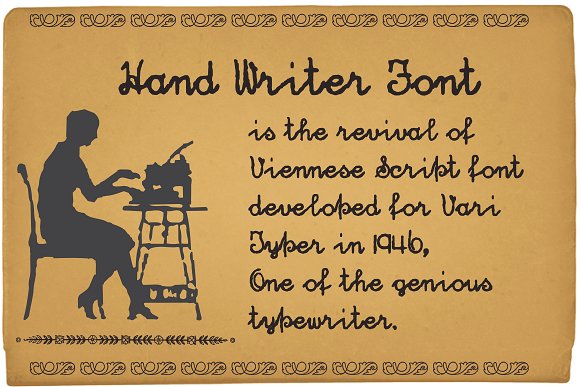
Introducing Hand Writer Font: A Versatile Handwritten Font by Jadugar Design Studio
Are you tired of using the same old fonts in your designs? Look no further! Hand Writer font, created by Jadugar Design Studio, is a handwritten font that adds a personal touch to your projects. With its unique and elegant style, this font is perfect for designers, crafters, and anyone looking to add a bit of personality to their work.
What is Hand Writer Font?
Hand Writer font is a carefully crafted handwritten font designed to mimic the look and feel of handwritten text. It is perfect for a variety of design projects, including invitations, greeting cards, posters, and more. The font is available in 6 variations, each with its own unique character:
- Hand Writer Regular
- Hand Writer Regular Rough
- Hand Writer Thin
- Hand Writer Thin Rough
- Hand Writer Bold
- Hand Writer Bold Rough
Key Features of Hand Writer Font
So, what makes Hand Writer font so special? Here are some of its key features:
- Unique and Elegant Style: Hand Writer font has a distinctive and elegant style that sets it apart from other fonts.
- 6 Variations: With 6 different variations, you can choose the one that best suits your design needs.
- Handwritten Look: The font is designed to mimic the look and feel of handwritten text, adding a personal touch to your designs.
- Easy to Read: Despite its handwritten style, Hand Writer font is easy to read, making it perfect for body text and headings.
Uses of Hand Writer Font
Hand Writer font is versatile and can be used in a variety of design projects, including:
- Invitations and Greeting Cards: Add a personal touch to your invitations and greeting cards with Hand Writer font.
- Posters and Flyers: Use Hand Writer font to create eye-catching posters and flyers that grab attention.
- Branding and Packaging: Add a touch of personality to your brand with Hand Writer font.
- Digital and Print Media: Use Hand Writer font in digital and print media, including social media graphics, e-books, and more.
Why Choose Hand Writer Font?
So, why choose Hand Writer font over other fonts? Here are some reasons:
- Unique Style: Hand Writer font has a unique and elegant style that sets it apart from other fonts.
- High-Quality Design: The font is carefully designed to ensure high-quality output.
- Support for Multiple Languages: The font supports multiple languages, making it perfect for international design projects.
In conclusion, Hand Writer font is a versatile and elegant handwritten font that adds a personal touch to your designs. With its 6 variations, unique style, and high-quality design, it’s perfect for designers, crafters, and anyone looking to add a bit of personality to their work. So, why not give Hand Writer font a try and take your designs to the next level?